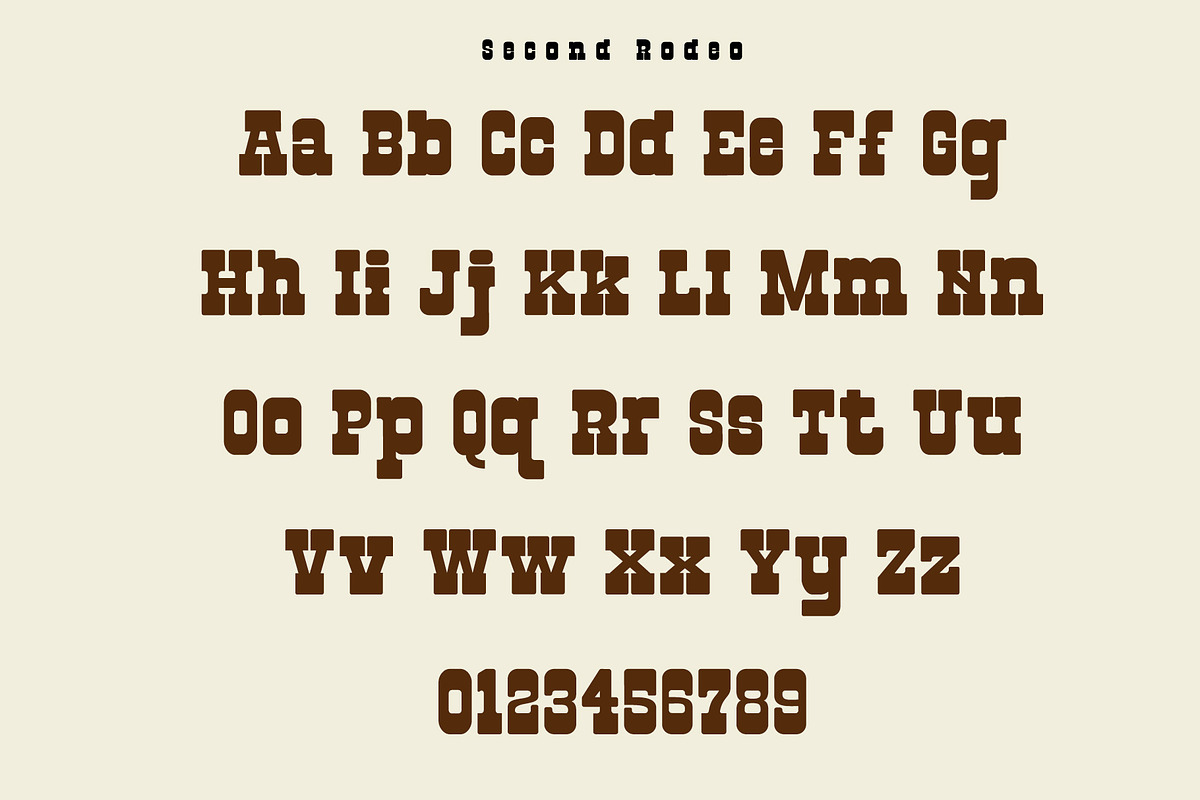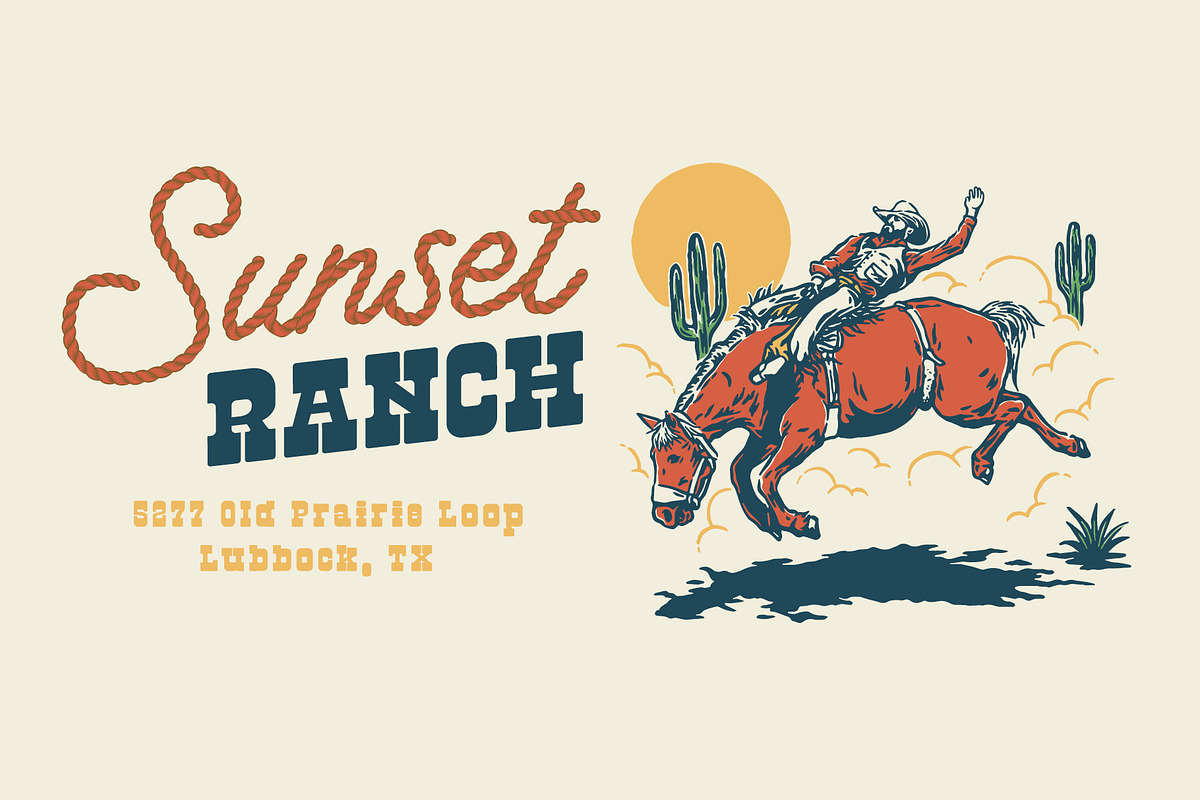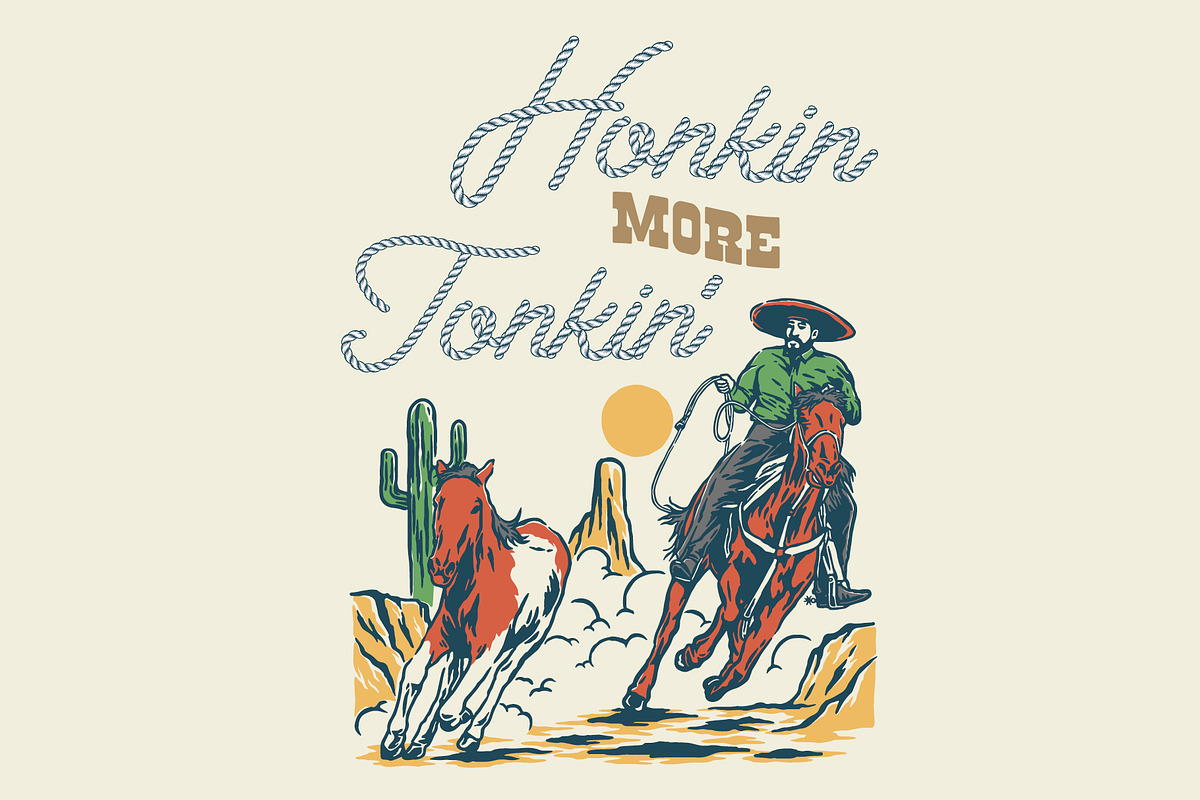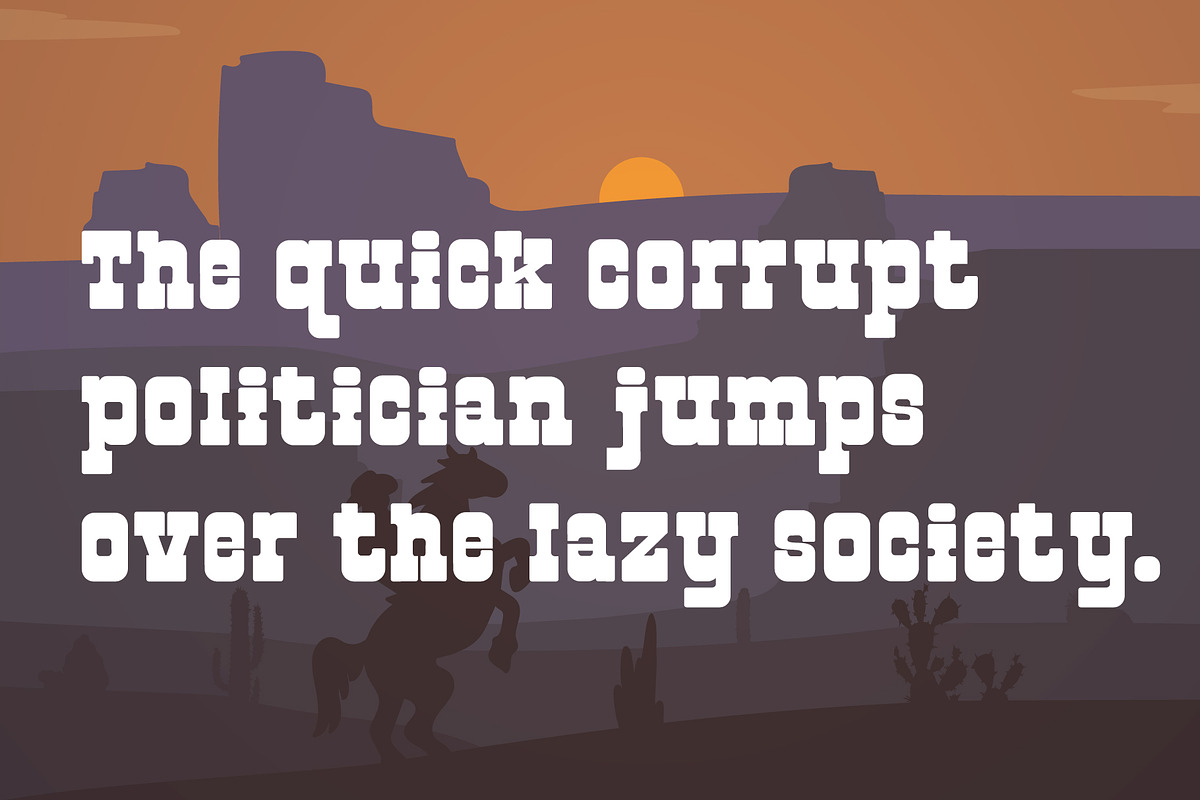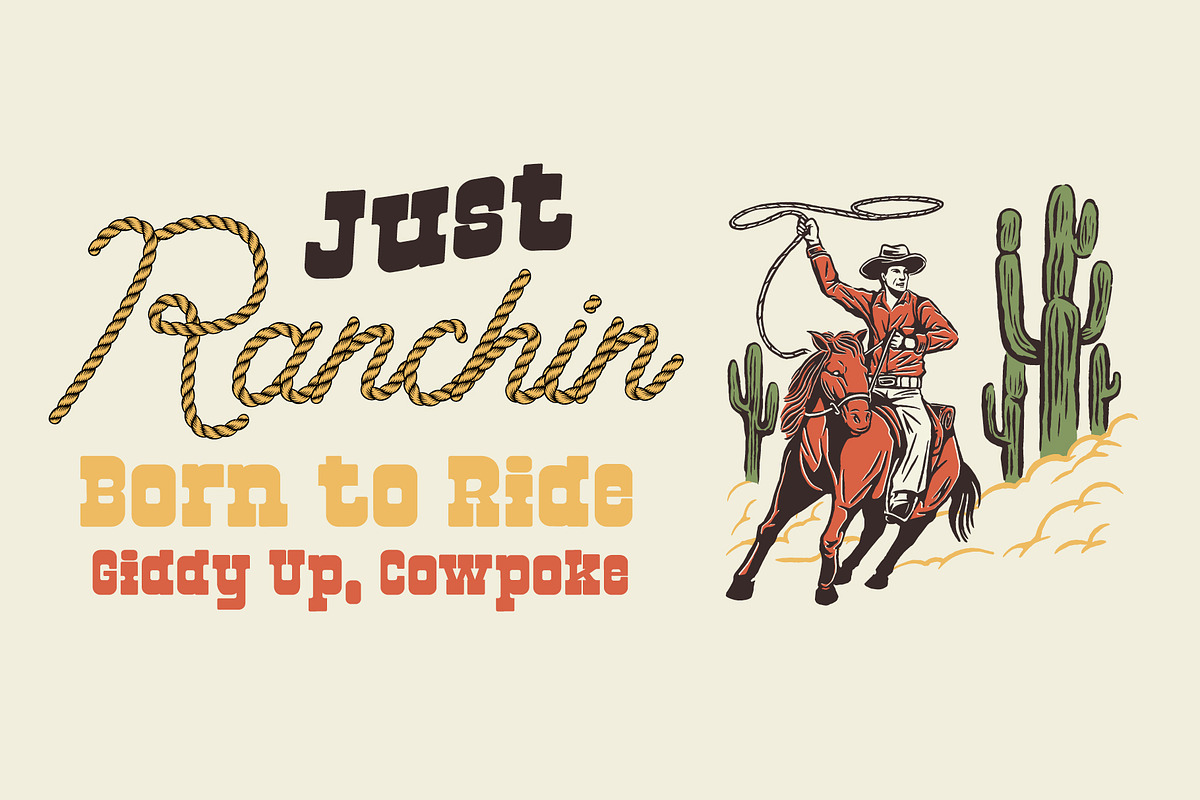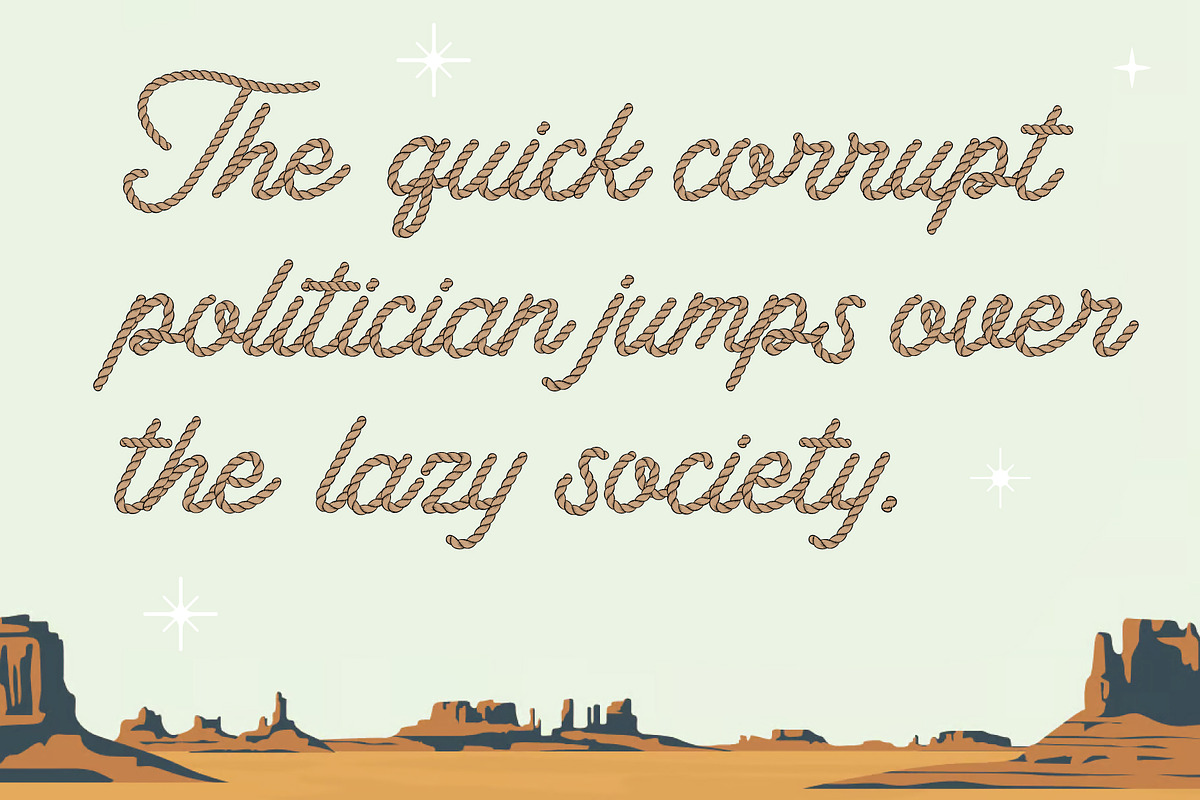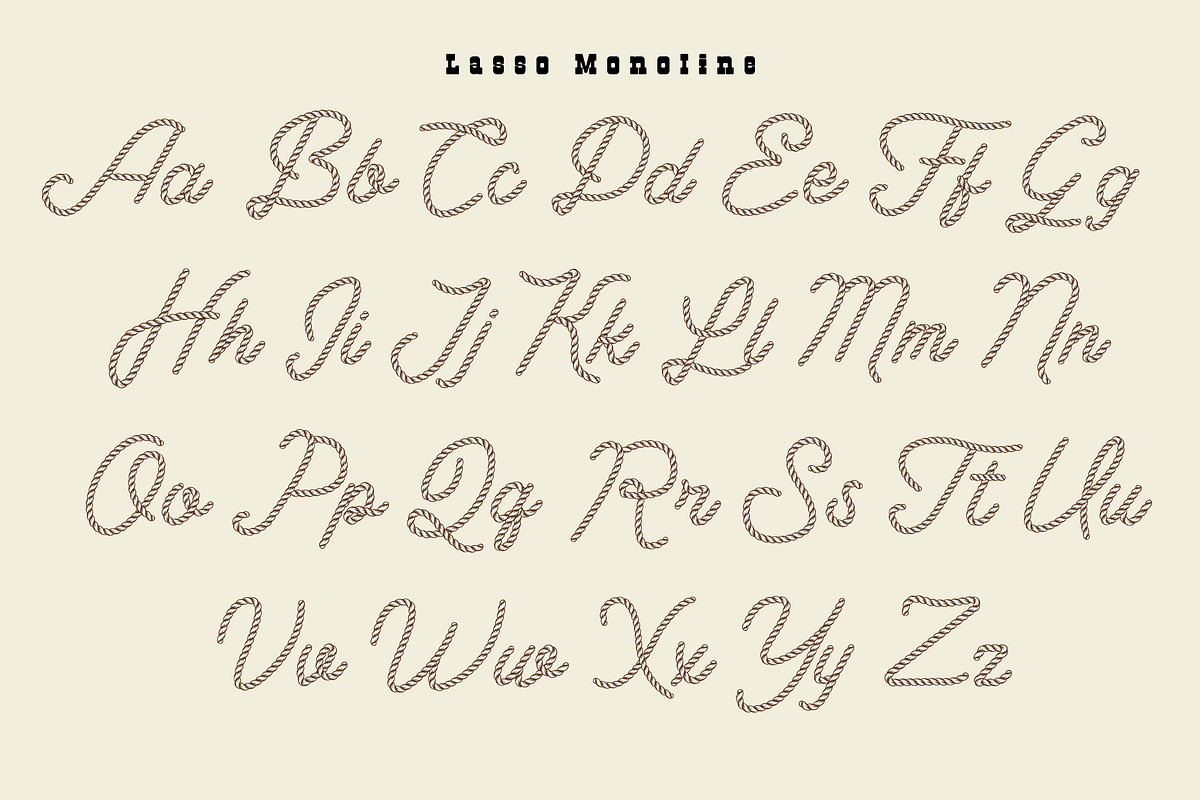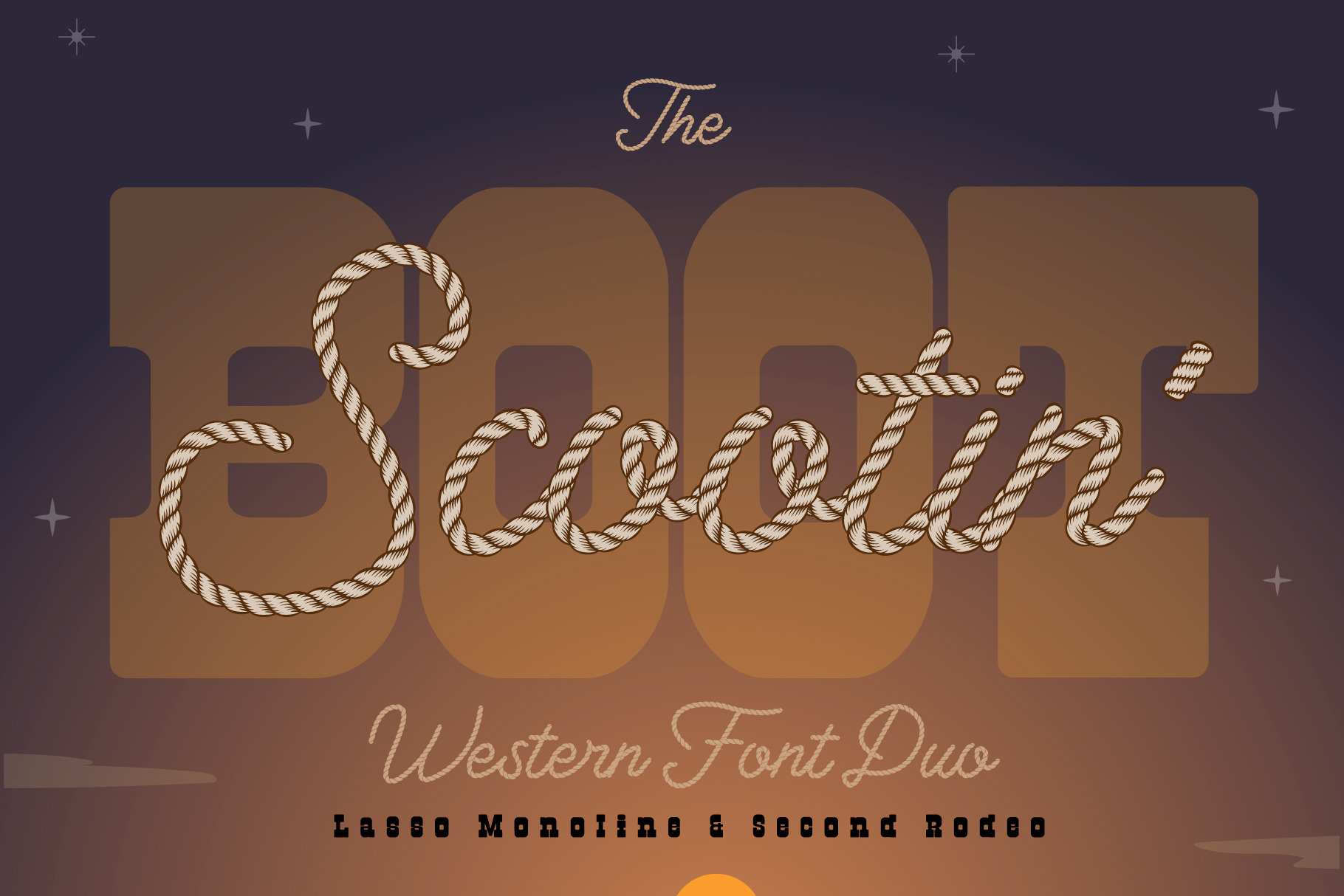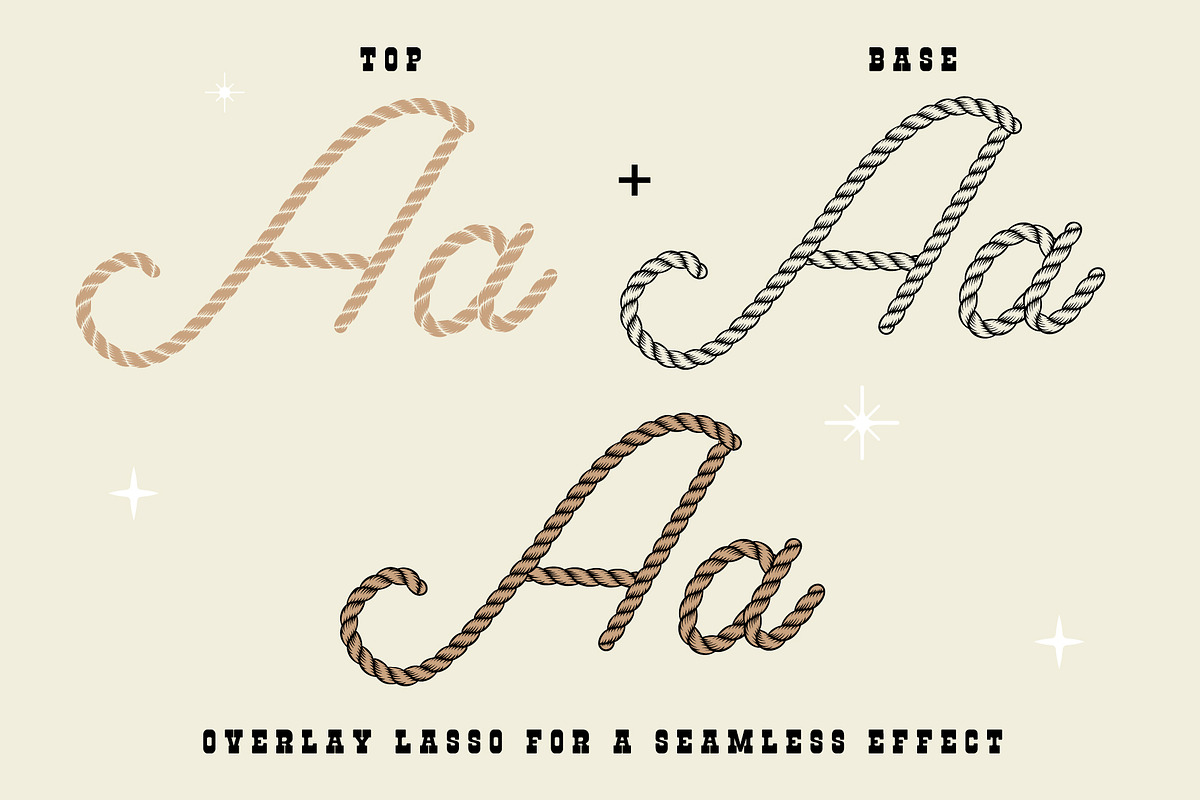
Boot Scootin' Western Font Duo
Give your designs some giddy up with Boot Scootin’, a wild Western font pairing made for ropin’ attention and ridin’ off into the sunset in style.
This dynamic duo features:
✨ Second Rodeo – a bold, vintage slab serif with attitude to spare. Perfect for headlines, logos, signage, and anything that needs a little frontier flair.
✨ Lasso Monoline – a rope-style script with a hand-drawn charm and smooth monoline flow, ideal for accents, branding, and Western-themed designs with a touch of whimsy.
Together, they’re the ultimate match for posters, country music merch, rustic wedding invites, rodeo flyers, vintage branding, and anything needing that yeehaw energy. Whether you're designing for Nashville nights or cowboy coffee shops, Boot Scootin' is ready to ride.